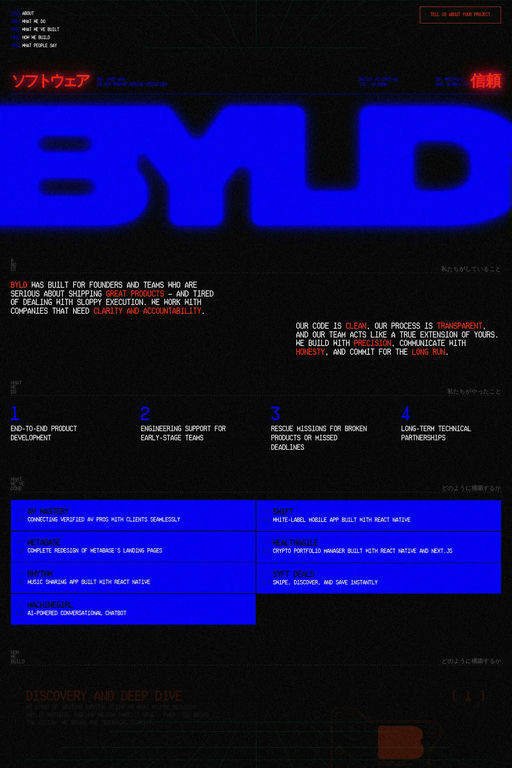
Ticketing is a monospaced font loosely based on the pixel style lettering of electronic ticketing, designed for clarity when cheaply printed at small sizes.
A1 features 1 website using Ticketing. It leans towards Noisey, Dark, and Pattern design styles.